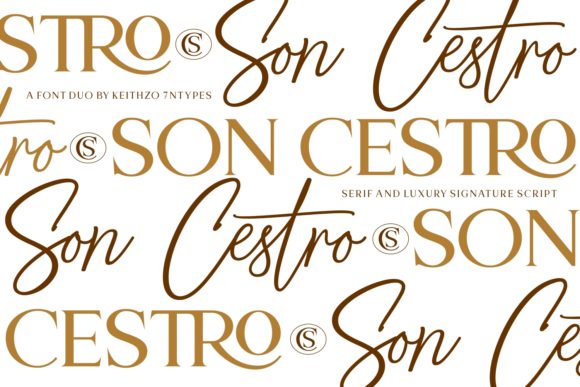
Introducing Son Cestro Duo Font, the ultimate choice for vintage logo enthusiasts! Created by the talented Keithzo from 7NTypes, this font family is a delightful combination of script and serif styles that will captivate your imagination.
With its sweet and soft hand-lettered design, Son Cestro brings a playful touch to any project. The rounded characters of the script font exude a sense of whimsy, while the elegance of the serif font adds a touch of sophistication. This unique blend makes Son Cestro the perfect choice for creating stunning stationery art that will leave a lasting impression.
One of the standout features of Son Cestro is its extensive range of PUA encoded characters. These special characters allow you to effortlessly add decorative elements to your designs, bringing them to life in seconds. Whether you're embellishing wedding invitations, crafting beautiful stationary art, or creating eye-catching social media posts, Son Cestro gives you the tools to make your designs truly stand out.
But it doesn't stop there. Son Cestro is also ideal for designing cute and charming greeting cards. Its authentic feel and artistic flair will bring a smile to anyone's face, making it the perfect choice for expressing heartfelt sentiments.
Searching for the perfect font can be a daunting task, but with Son Cestro Duo Font, the search ends here. Embrace the vintage charm and let your creativity soar as you explore the endless possibilities this font offers. Stand out from the crowd and make a statement with your designs.